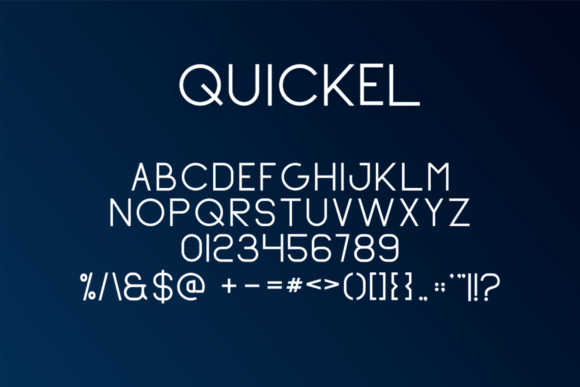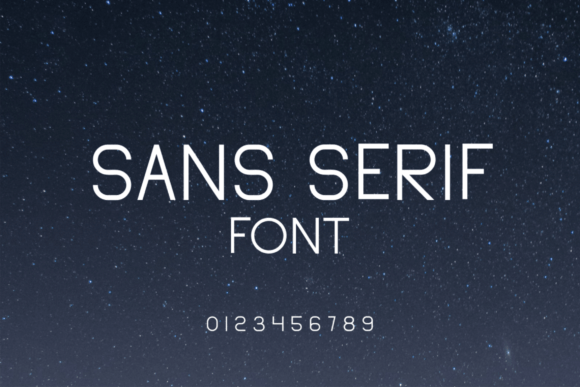
Introduction to Quickel Font
Do you ever find yourself staring at a blank canvas, desperate for the perfect font to bring your creative project to life? For many designers, this is a familiar experience. But what if I told you that there’s a solution to this age-old problem? Enter the Quickel Font, an elegant and modern sans serif font that’s sure to elevate your designs to the next level.
With its minimalist and clean vibe, the Quickel Font is the perfect design resource for anyone looking to add a touch of sophistication to their work. Whether you’re creating book covers, magazine layouts, social media posts, or invitations, this high-quality font is sure to impress. And the best part? You can download it for free, complete with a transparent background, making it easy to integrate into your design.
Key Features of Quickel Font
- High-quality design: Quickel Font is a premium font designed to elevate any creative project, making it a valuable design resource.
- High-resolution design: Quickel Font is designed at 300 DPI, ensuring high-quality output and minimal pixelation when used in print or digital projects.
- Unique characteristics: This font features a unique blend of modern and vintage elements, making it an excellent choice for designers working on creative projects that require a distinctive look.
Honest Review: Quickel Font
I recently stumbled upon the Quickel Font, and I must say, it’s a great addition to my design resources. The font is perfect for creative projects that require a modern and sleek aesthetic.
Here are some things that work well: ✨
- High-quality design: The Quickel Font has a clean and sophisticated look that makes it perfect for various design applications.
However, there are a few limitations: ⚠️
- Limited character set: The Quickel Font has a limited character set, which might be a concern for designers who need to work with multiple languages or complex text.
- No bold or italic styles: The font only comes in regular style, which might limit its versatility in certain design applications.
Overall, I’m impressed with the Quickel Font, and I think it’s a great resource for designers who need a modern and sleek font for their creative projects. While it has some limitations, its high-quality design and free download make it a valuable addition to my design resources.
Tips for Getting the Most Out of Quickel Font
To get the most out of the Quickel Font, try using it in combination with other design elements, such as graphics and images. Experiment with different font sizes, colors, and styles to create a unique and eye-catching design.
Common Use Cases for Quickel Font
The Quickel Font is ideal for use in a variety of creative projects, including logos, posters, and social media graphics. It’s also a great choice for use in presentations and documents, where a high-quality and professional font is desired.